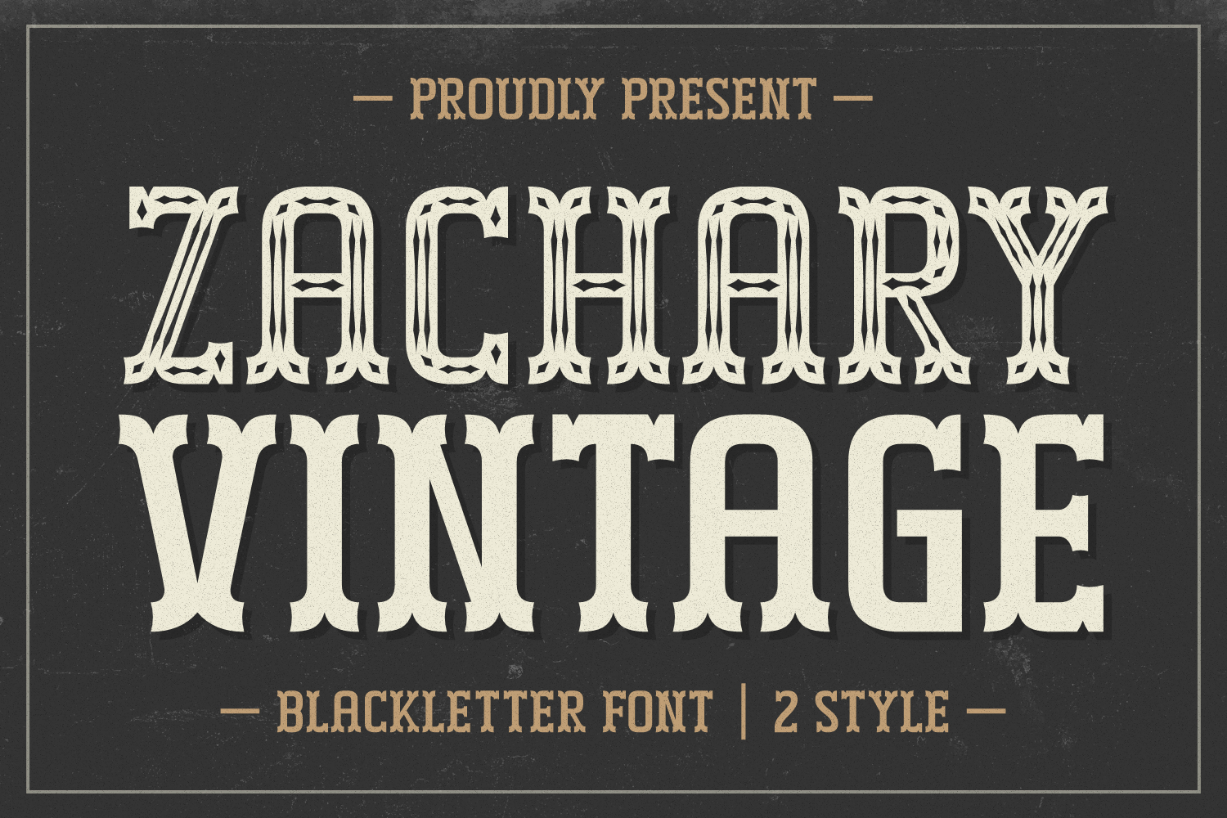
About Zachary Vintage Font
Zachary Vintage is a stylish blackletter font available in two styles. Stand out from the crowd by using this captivating font to create bold and eye-catching typography! It is perfect for headers, headlines, titles, book covers, advertisements, branding projects, t-shirts, signage, and more.